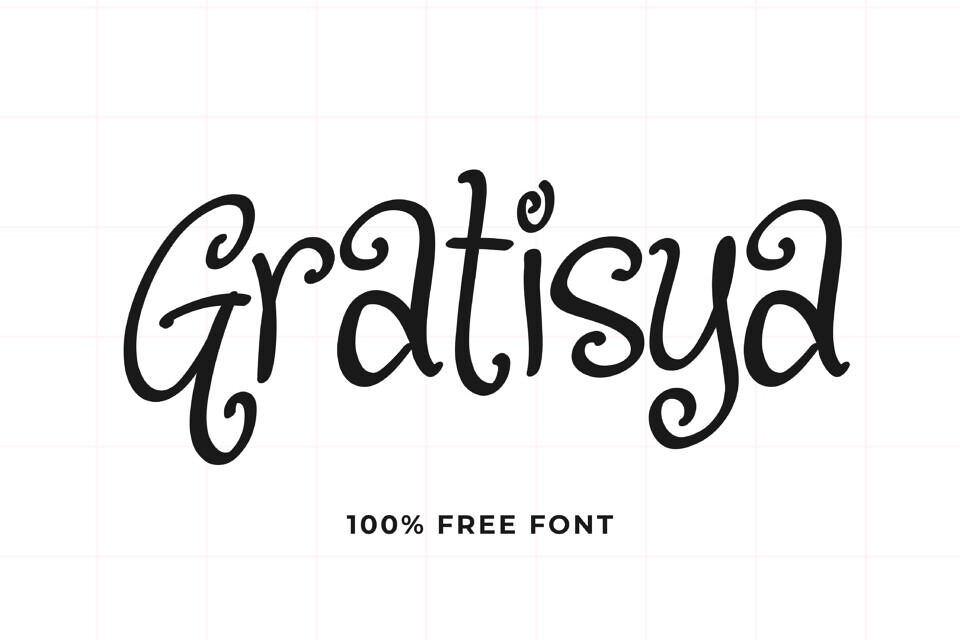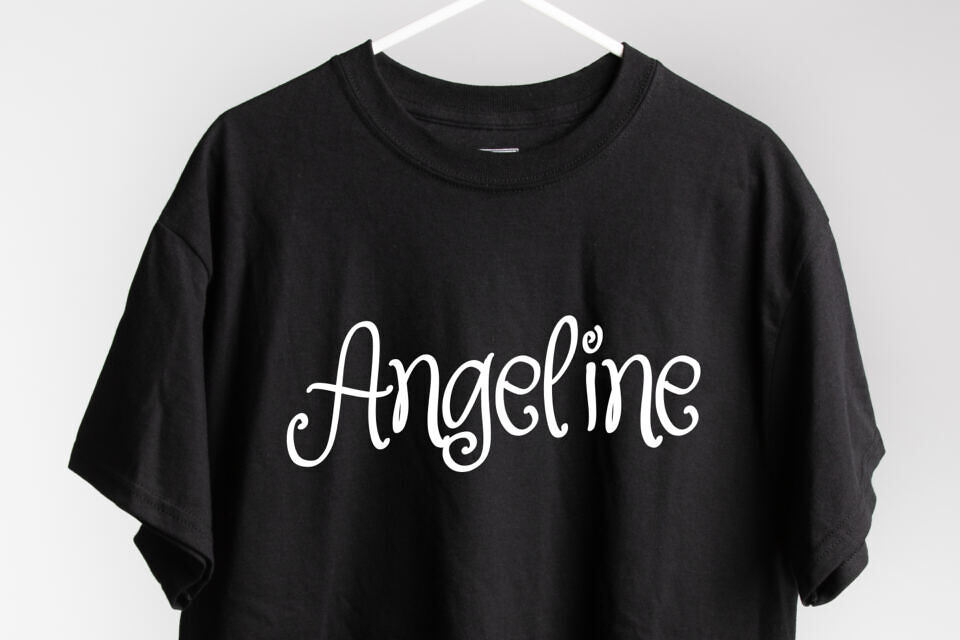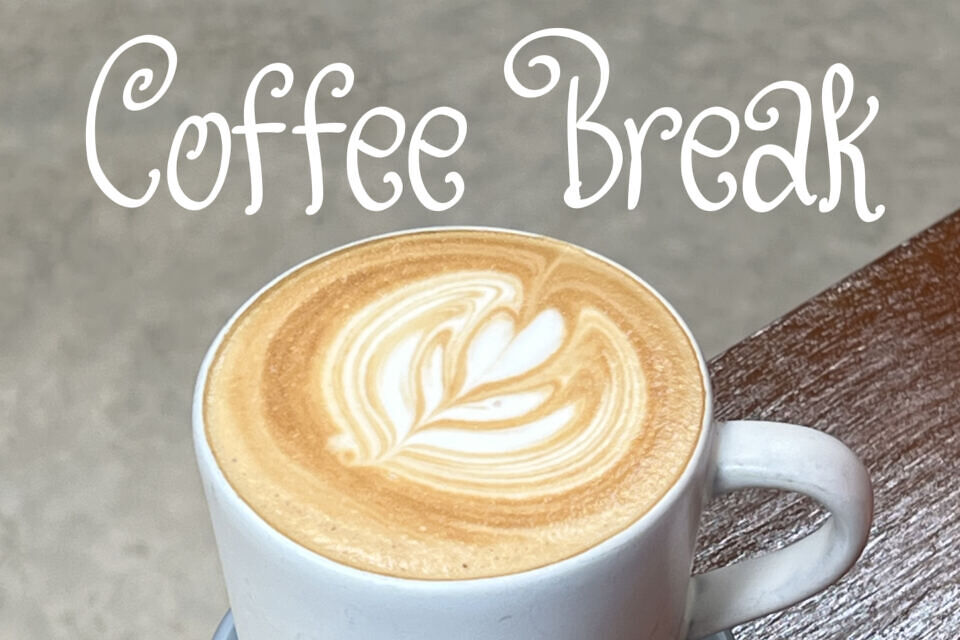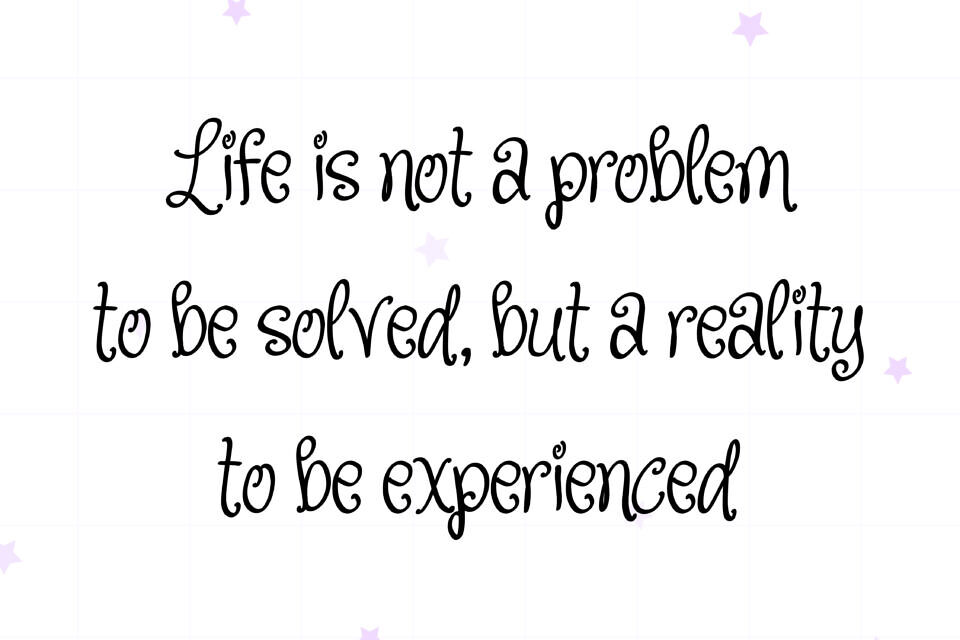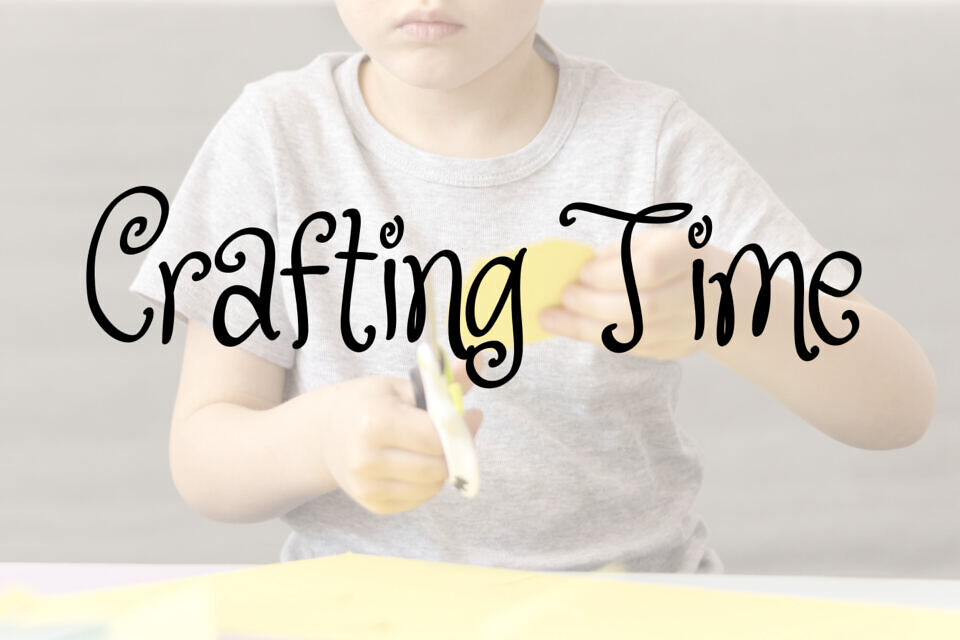
Gratisya is cute swirly font. It is great for branding, quotes, logos, t-shirt designs, tote bag designs, cards, banners, social media, and more.
Gratisya brings a handmade, joyful feel to any design. It’s the perfect way to add a bit of personality and warmth to your creations. Get ready to sprinkle some magic on your next project!